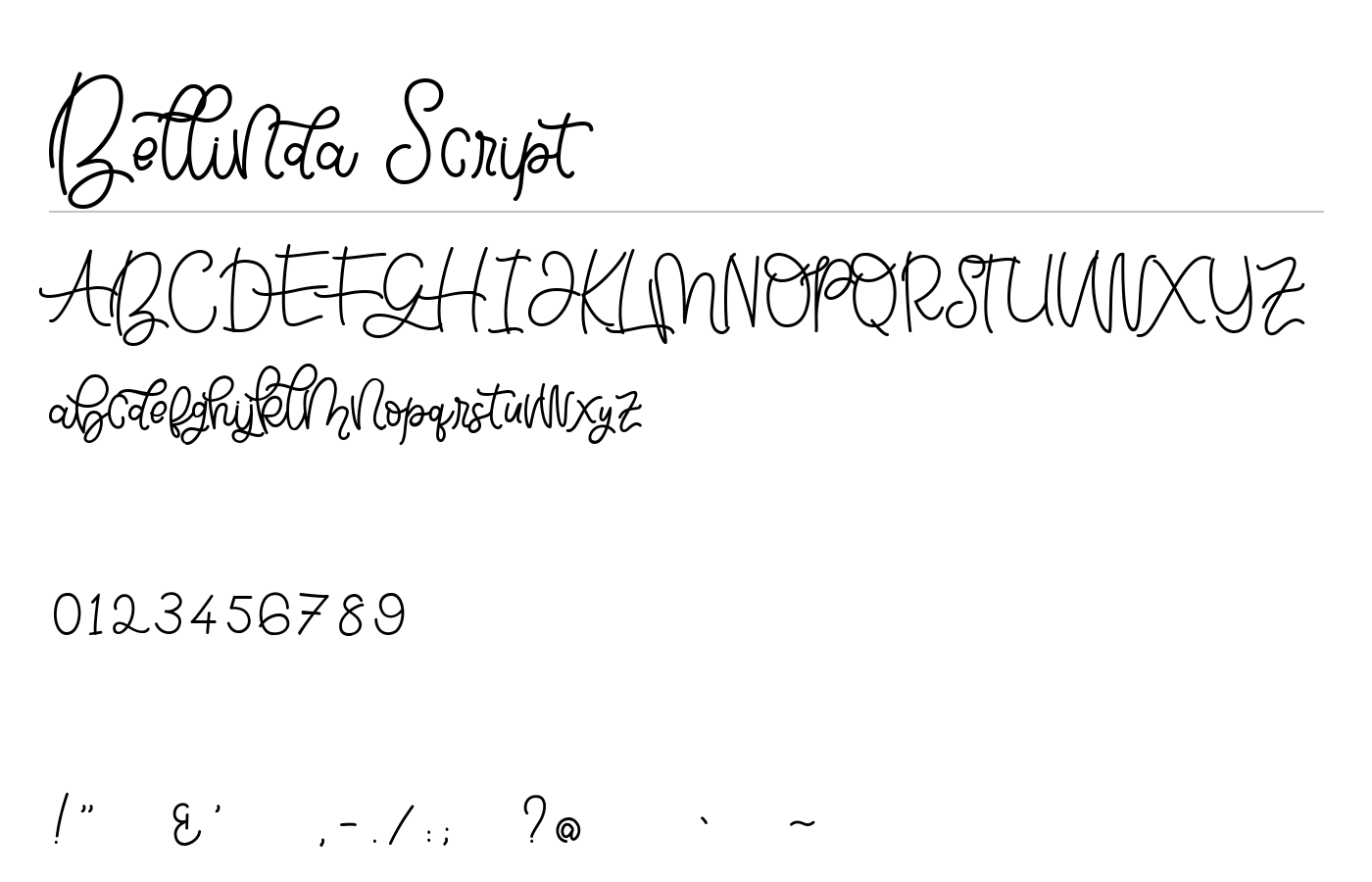
Bellinda Script is a delicate and whimsical handwritten font characterized by fine, flowing lines and playful loops that give it a charming, casual elegance. Its slender strokes and unique letterforms make it ideal for creative, personal branding or invitations where a lighthearted yet refined feel is desired. This font works beautifully in designs that aim to communicate warmth and individuality with a touch of artistic flair.
Bellinda Script Font
About Bellinda Script Font